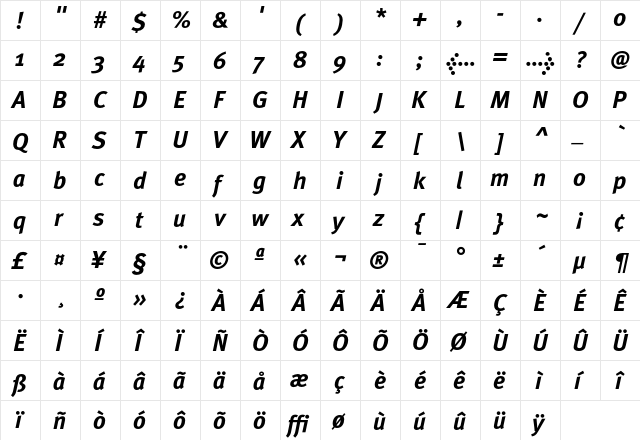
MetaPlus BoldItalic
Design Context for MetaPlus Typeface
MetaPlus takes a measured approach to typography — its balanced proportions and neutral character make it a reliable workhorse for both digital and print work. Its italic angle brings a sense of urgency and motion to the letterforms. The heavy weight commands attention and anchors typographic hierarchies.
Pro Tip: Try MetaPlus for annotation and caption copy alongside an upright companion — the contrast in angle creates a dynamic but ordered typographic system.